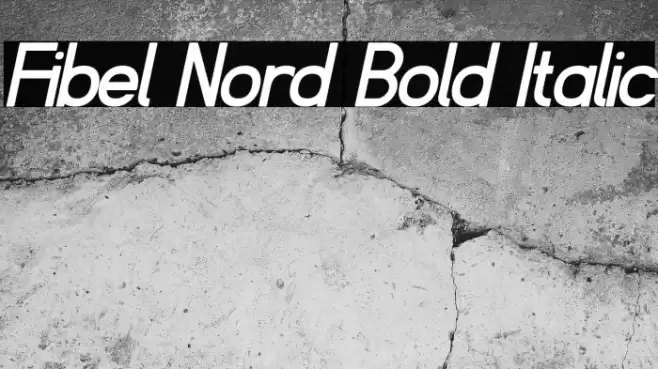
Fibel Nord Bold Italic Font
Fibel Nord Bold Italic Description
This font features a bold and italicized style, characterized by its slanted and dynamic appearance. The letters are well-defined with a consistent stroke weight, giving it a strong and assertive presence. The uppercase and lowercase letters maintain a uniform slant, enhancing the italic effect. Numbers and special characters are designed to match the overall style, ensuring a cohesive look. The font's boldness and italic nature make it suitable for attention-grabbing headlines and impactful designs.
A bold, italicized font with a dynamic and assertive style from Uncategorized fonts.
- Proposed Projects: Ideal for branding, advertising, and editorial design where a bold statement is needed.